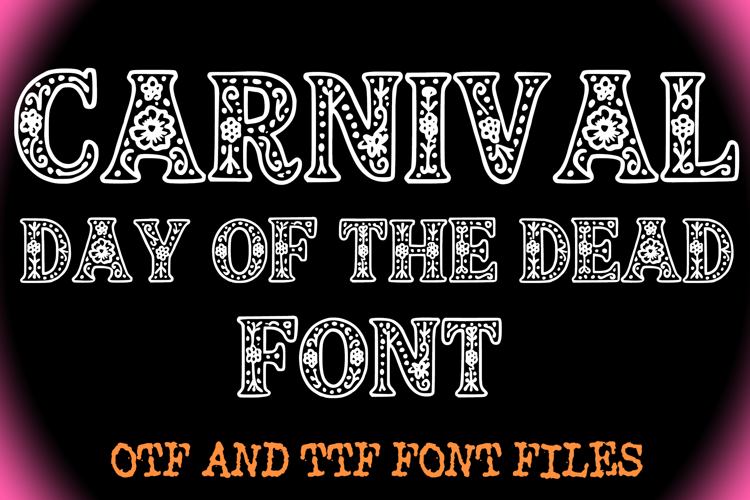
Carnival Day of the Dead Alphabet Lettering ABC Text Font
Step into a world of vibrant celebration and festive artistry with the breathtakingly detailed Carnival Day of the Dead Font. This exquisite display serif typeface features bold, classic letterforms adorned with intricate, hand-drawn floral patterns, delicate swirls, and starry dots reminiscent of traditional Mexican sugar skull (calavera) folk art, festive embroidery, and vibrant carnival engravings. It stands as an exceptional choice for headlines, posters, and craft designs that require a joyous, culturally rich, and highly decorative aesthetic.
Ideal For Creative Merch & DIY
Custom Merchandise: Design striking typography layouts for festive cultural t-shirts, canvas trick-or-treat bags, and vibrant screen-printed hoodies.
Die-Cut Stickers: Create beautiful, highly detailed vinyl decals for laptops, flasks, celebration planners, and festive journals.
Theme Stationery: Perfect for Día de los Muertos celebration flyers, festival posters, Mexican-themed wedding invitations, or colorful party banners.
Artisan Branding: Elevate logos, business cards, and social media packaging for independent bakeries, craft hot sauce brands, artistic boutique shops, or creative studios.